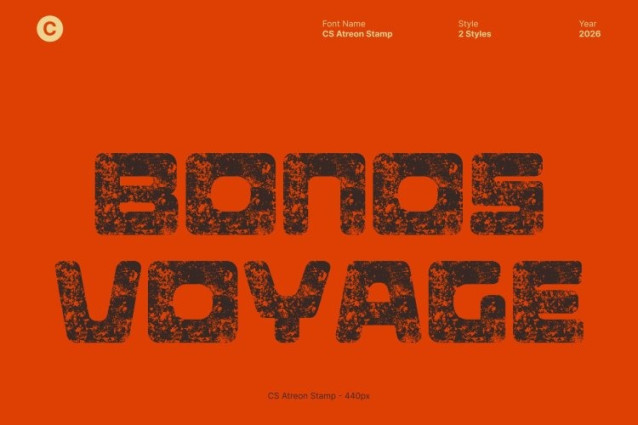
CS Atreon Stamp Font
CS Atreon Stamp Font This is a bold display sans serif font designed to command attention. Built on strong geometric foundations, this font delivers powerful visual impact while introducing a distinctive stamp effect that adds texture, depth, and character. The result is a striking balance between futuristic strength and vintage expression.
Geometric Precision Meets Stamped Texture
Each letterform is constructed with clean geometry and sharp structure, reflecting modern precision and clarity. The stamped texture overlays these forms with an imperfect, weathered feel bringing an artistic, handcrafted quality that evokes classic print techniques and old industrial design while retaining a contemporary edge.
Expressive, Raw, and Eye-Catching
The bold shapes and rough stamp effect create an expressive typographic voice that feels confident and authentic. Slight irregularities in texture give the font a lived-in, tactile presence, making it ideal for designs that want to feel powerful, raw, and visually engaging without sacrificing readability.
Ideal for Vintage-Inspired Modern Design
Perfect for branding, posters, packaging, apparel, album covers, and editorial visuals, excels in projects that blend modern concepts with retro or industrial aesthetics. Its fusion of futuristic geometry and vintage stamp character makes it a strong choice for designs that seek attitude, creativity, and timeless impact.